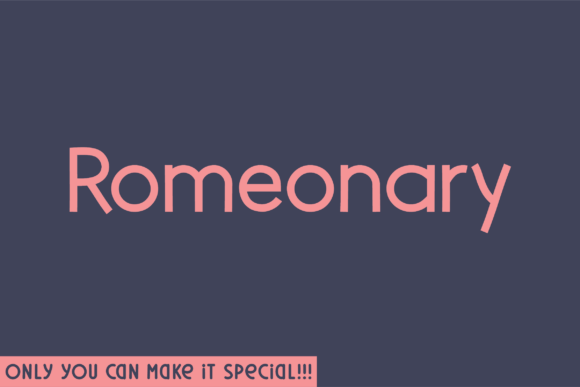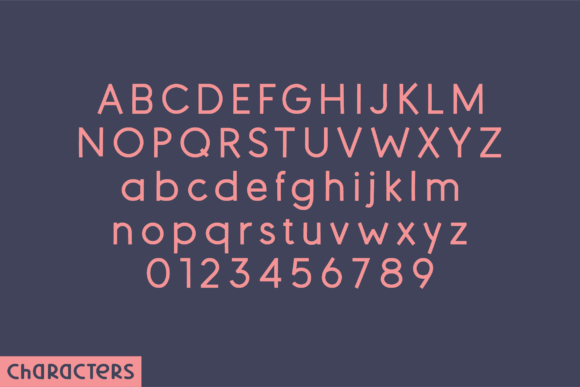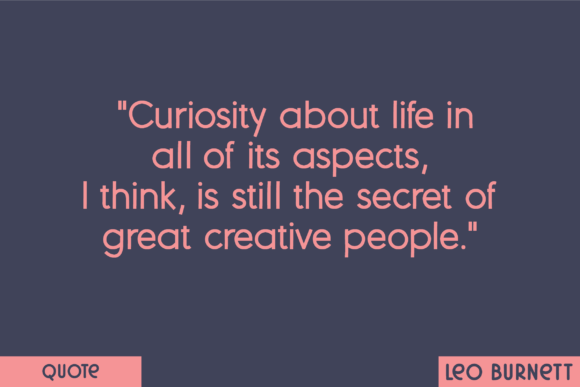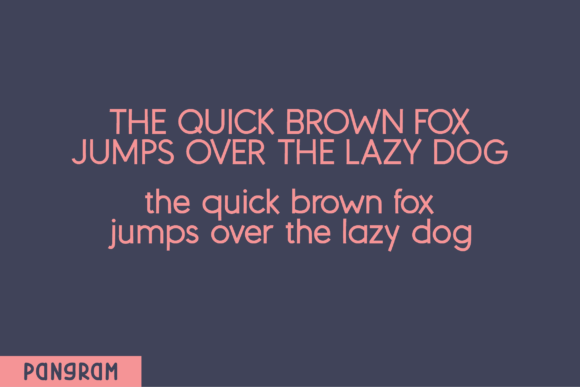
Romeonary Font: Unique Modern Sans Serif for Branding & Logo Design
About the Romeonary Font
We are excited to introduce Romeonary Font, a must-have typeface for any serious designer. Romeonary is a natural sans serif font without changing a single node in each character’s indentation, this makes this font very interesting and unique. Perfect for quotes, notes, tees, and any product design.
Its clean, yet slightly quirky, geometry makes Romeonary ideal for headlines, short blocks of text, and branding applications where a modern yet approachable feel is desired. It excels in logo design, packaging for premium products, and short-form marketing materials like posters or social media graphics. However, its unique character spacing might prove less effective for lengthy body copy or user interface elements requiring high readability.
Romeonary’s personality is best described as bold yet friendly, a balance of modern confidence and approachable warmth. This makes it particularly well-suited for brands aiming for a sophisticated but not overly serious image.
Pairing Romeonary with a classic serif like Garamond for body text would create elegant contrast, while a geometric sans-serif such as Futura would enhance its modern feel. For a playful touch, consider pairing it with a handwritten script font.
Romeonary Font Usage Examples
Romeonary Font Example